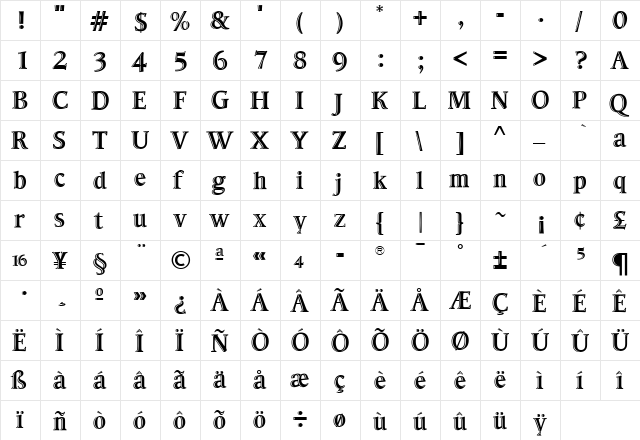
TFHabitatCntour Bold
| Foundry | Joseph Treacy, Treacyfaces, Inc |
| Year | 1986 |
Design Context for TFHabitatCntour Typeface
TFHabitatCntour takes a measured approach to typography — its balanced proportions and neutral character make it a reliable workhorse for both digital and print work. Its bold stroke weight gives it real presence on the page.